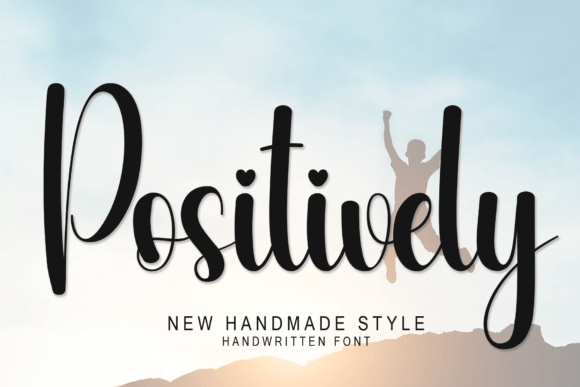
Introducing Positively Font, the epitome of elegance and sophistication, meticulously crafted for the discerning designer. Immerse yourself in the world of Positively, a script font that exudes charm and charisma in every letter. Created by the visionary Roronoa zoro.S.P.D, Positively is a work of art that will bring life and personality to your designs.
Positively's graceful strokes and sweeping curves evoke a sense of romance and nostalgia. It's a font that captures the essence of timeless beauty, transporting you to a bygone era of elegance and grace. With its effortless flow and delicate details, Positively will add a touch of refinement to your projects, leaving a lasting impression.
Designed for the modern calligrapher, Positively is the perfect choice for adding a personal touch to your handwritten notes, cards, and invitations. Its versatile style makes it suitable for a wide range of projects, from wedding invitations and branding materials to social media graphics and product packaging. Let Positively elevate your designs and make them truly unforgettable.
Positively is not just a font; it's an experience. It's a font that invites you to explore your creativity and express yourself in a unique and meaningful way. Whether you're a seasoned designer or just starting out, Positively will empower you to create designs that captivate and inspire.
In a world of digital noise, Positively stands out as a beacon of individuality and authenticity. It's a font that will make your designs shine and leave a lasting impact on your audience. Embrace the beauty of Positively and let your creativity flourish.